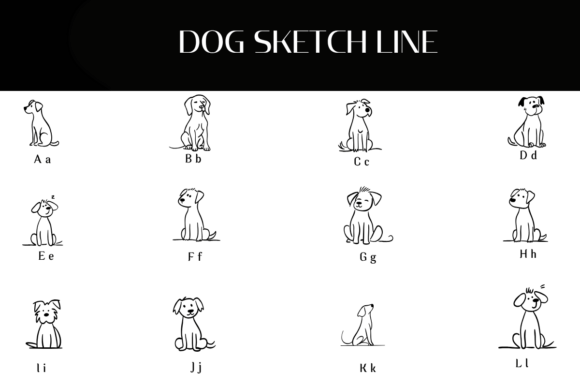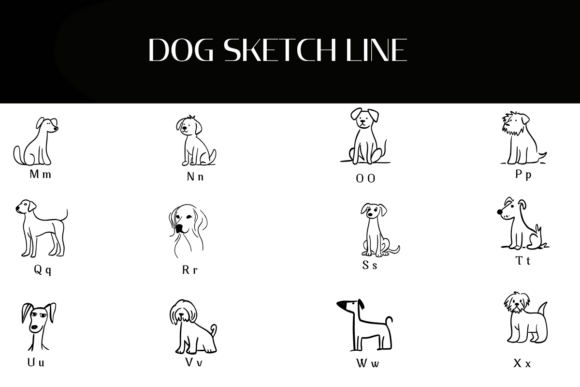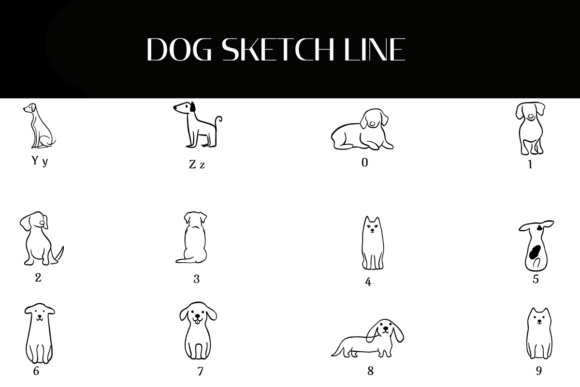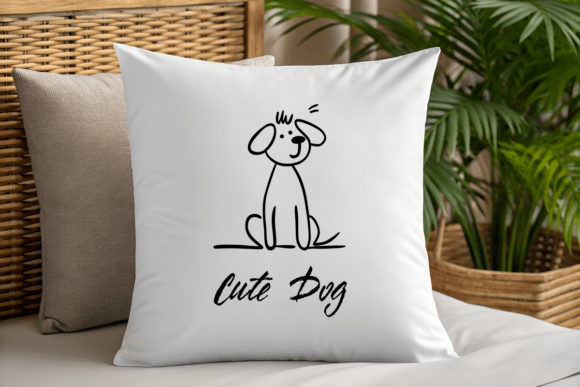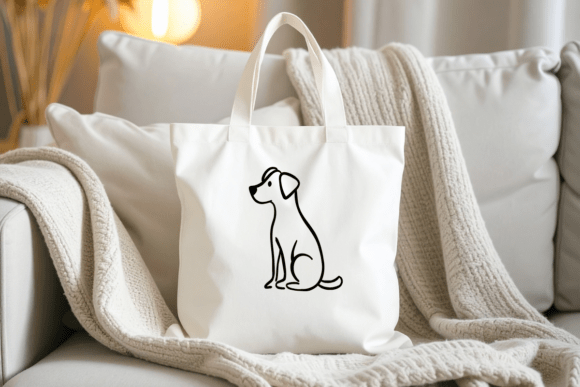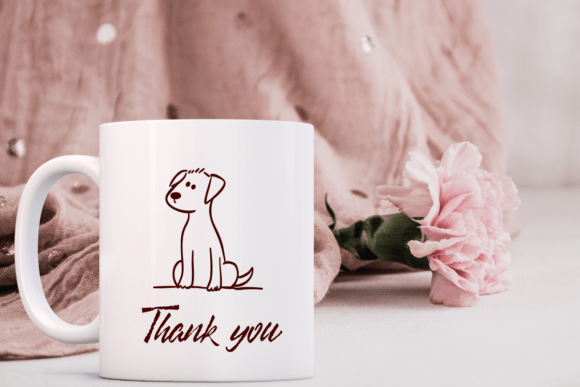
🐶 Unleash Creativity with Dog Sketch Line Dingbats Font
Are you a dog lover, a pet-themed business owner, or a designer looking for a unique touch to add to your projects? Look no further than the Dog Sketch Line Dingbats Font! 🐾 This charming collection of hand-drawn line-art sketches features a variety of dog breeds in different poses, perfect for bringing a touch of canine charm to your designs.
What is Dog Sketch Line Dingbats Font?
The Dog Sketch Line Dingbats Font is a delightful set of illustrations that can be used to add a playful and clean touch to your projects. Each illustration is carefully designed in a minimalist line-art style, ensuring they look fantastic at any size and integrate seamlessly into both digital and print media.
Key Features of Dog Sketch Line Dingbats Font
- Unique and Hand-Drawn Illustrations: Each dog illustration is meticulously crafted to bring a touch of personality and charm to your designs.
- Variety of Dog Breeds and Poses: From playful pups to majestic breeds, this font has a wide range of dog illustrations to suit any design need.
- Clean and Minimalist Line-Art Style: The simple yet elegant design ensures that the illustrations look great at any size and in any medium.
- Versatile and Easy to Use: Simply type a character, and a wonderful dog illustration will appear, making it easy to add a personal touch to your projects.
Use Cases for Dog Sketch Line Dingbats Font
This versatile font can be used in a variety of projects, including:
- Logo Design: Create a memorable logo for pet-themed businesses, dog daycare centers, or pet stores.
- T-Shirts and Merchandise: Add a cute and playful touch to your apparel and accessory designs.
- Personalized Gifts: Create customized gifts, such as mugs, tote bags, or phone cases, for dog lovers.
- Greeting Cards and Stationery: Add a personal touch to your cards, invitations, and stationery with adorable dog illustrations.
- Scrapbooking and Journaling: Embellish your scrapbook pages or journals with cute dog illustrations.
- Social Media Graphics: Create engaging social media graphics, such as Facebook posts, Instagram stories, or Twitter headers, with a playful touch.
Why Choose Dog Sketch Line Dingbats Font?
With the Dog Sketch Line Dingbats Font, you can:
- Add a Personal Touch: Bring a touch of personality and whimsy to your designs.
- Stand Out from the Crowd: Use unique and original illustrations to differentiate your designs from others.
- Save Time and Effort: Quickly and easily add professional-looking illustrations to your projects.
Tips and Tricks for Using Dog Sketch Line Dingbats Font
Here are some tips to get the most out of the Dog Sketch Line Dingbats Font:
- Experiment with Different Sizes: Try out different sizes to see how the illustrations look in various contexts.
- Combine with Other Fonts: Pair the Dog Sketch Line Dingbats Font with other fonts to create visually appealing combinations.
- Use in Digital and Print Media: Take advantage of the font’s versatility by using it in both digital and print projects.
The Dog Sketch Line Dingbats Font is a must-have for designers, crafters, and dog lovers alike. With its unique and hand-drawn illustrations, clean and minimalist line-art style, and versatility, this font is perfect for adding a touch of canine charm to your projects. So why wait? Get creative and unleash the power of the Dog Sketch Line Dingbats Font today! 🐾